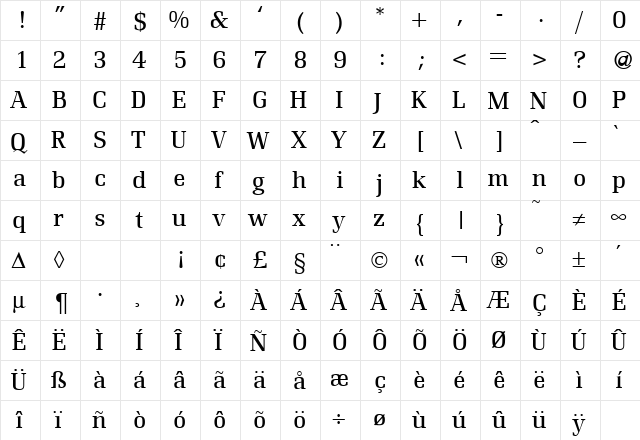
Renowned Regular
Design Context for Renowned Typeface
Renowned is a composed and adaptable typeface that performs quietly and consistently across a wide range of design contexts.